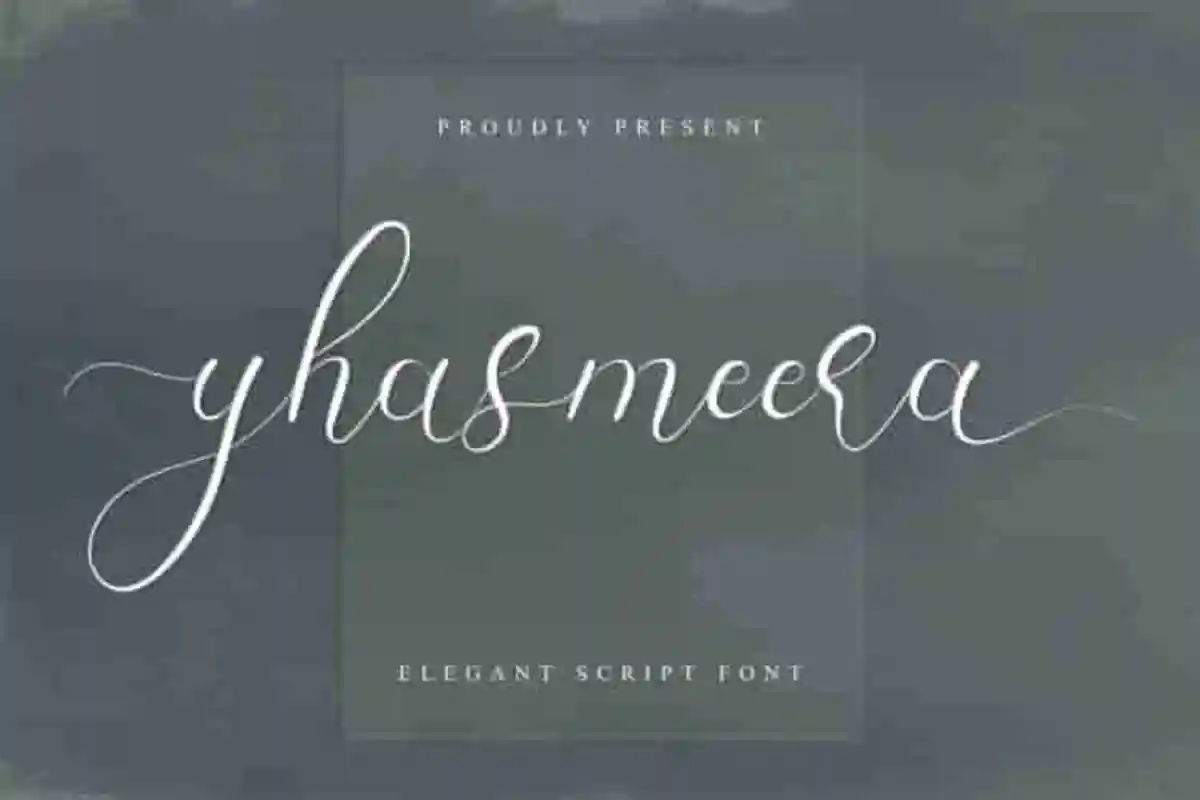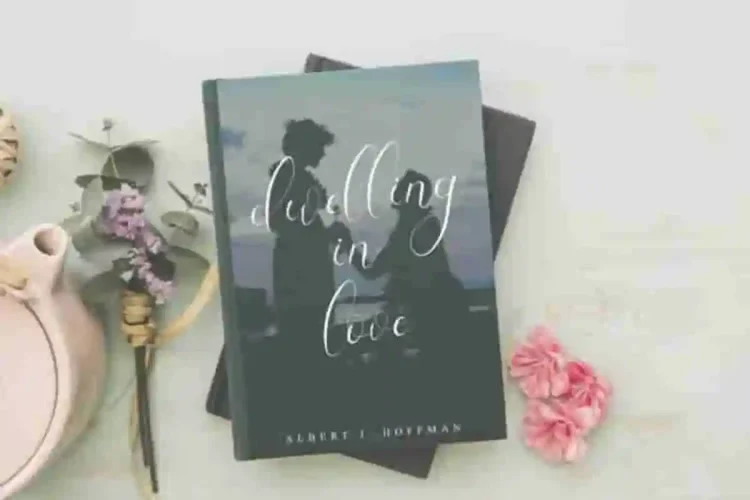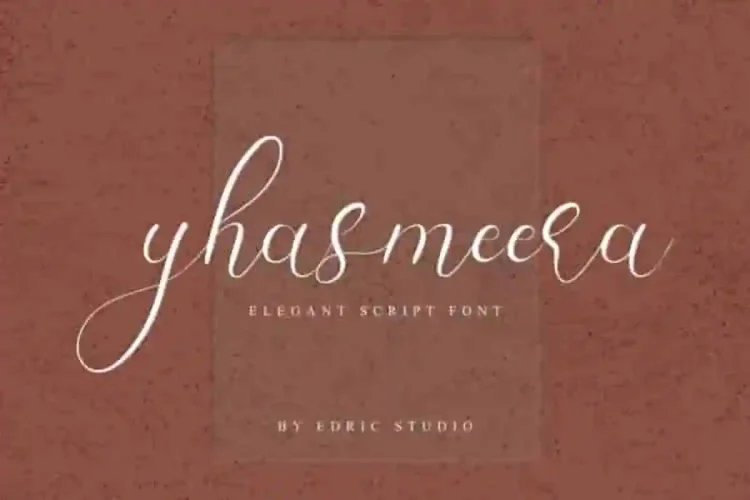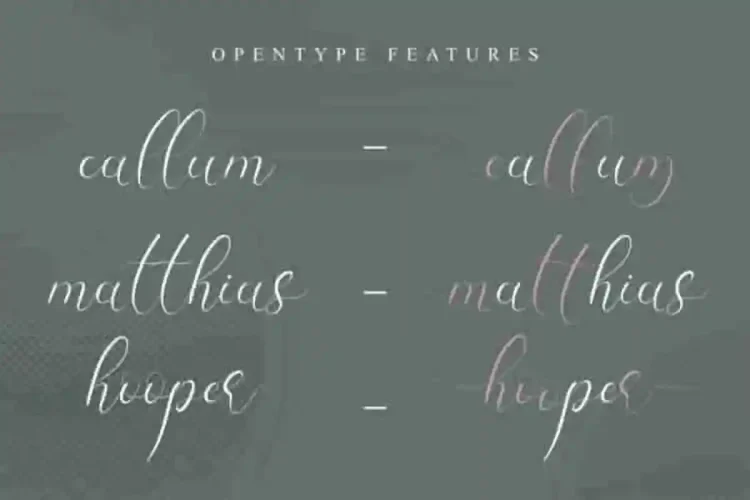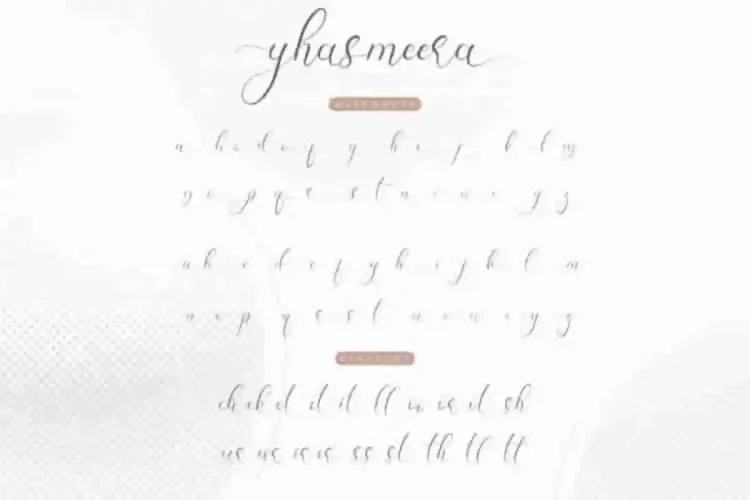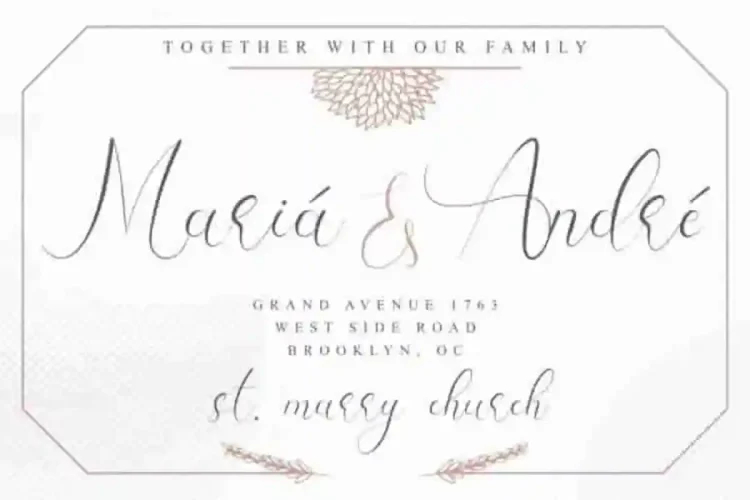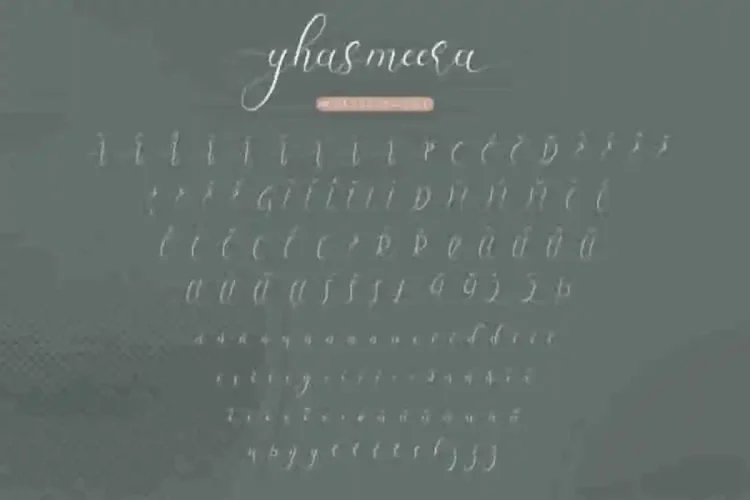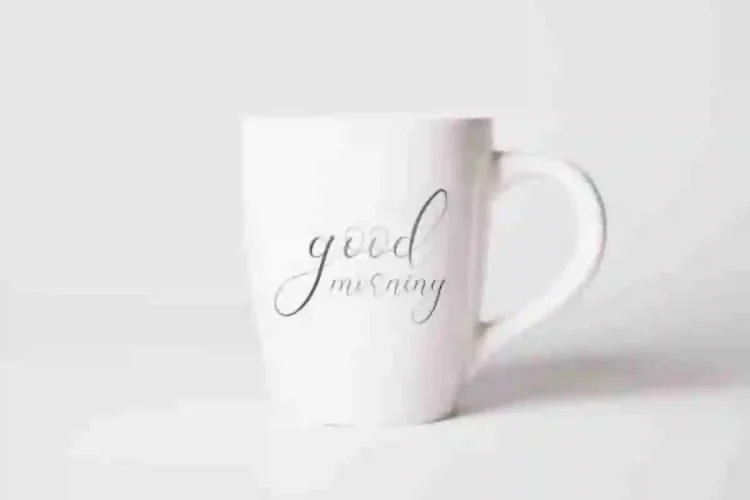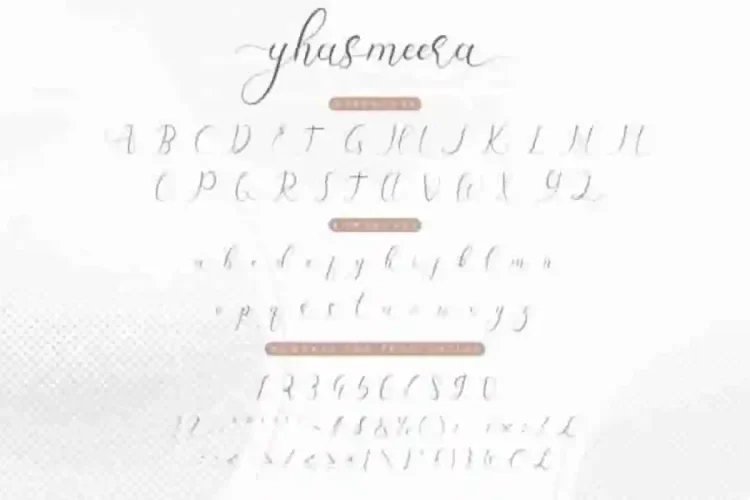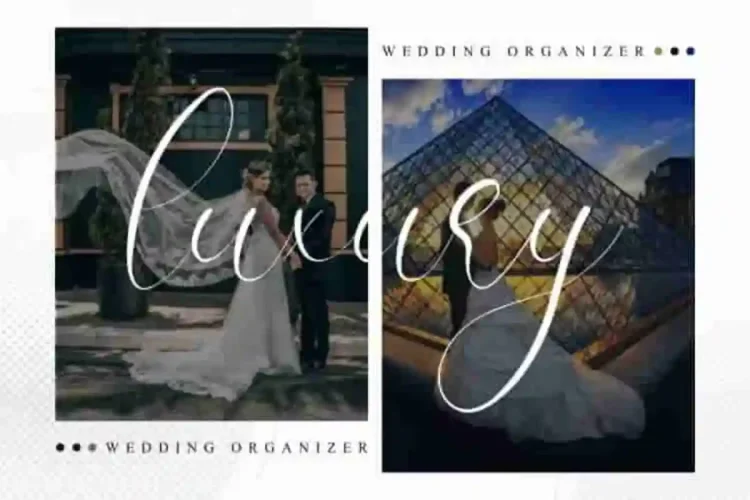
Yhasmeera Calligraphy Font
For all every Creative folks, Today we are going to present one of our newest font : Yhasmeera Calligraphy Font   . This new font is a calligraphy font script. Introducing Yhasmeera, a stunning calligraphy script font created with love and precision by our talented typeface designers, Widi and Suci, in Bandung, Indonesia.
This font has an exclusive beautiful calligraphy style. The characters of this font is sophisticated, feminine, glamourous, luxury, elegant, vintage and natural look. With these styles you can explore many industries and designs categories : Wedding, Advertising, Display, Music, Cafe, florist, gardening, makeup, designer etc.
Yhasmeera Calligraphy Font  has a unique and exclusive glyphs that will be great for many projects categories : Logo type, flyer, stationery, business card, signage, flyer, brochure etc.  With your creativity, there’s no limit using with this typeface.